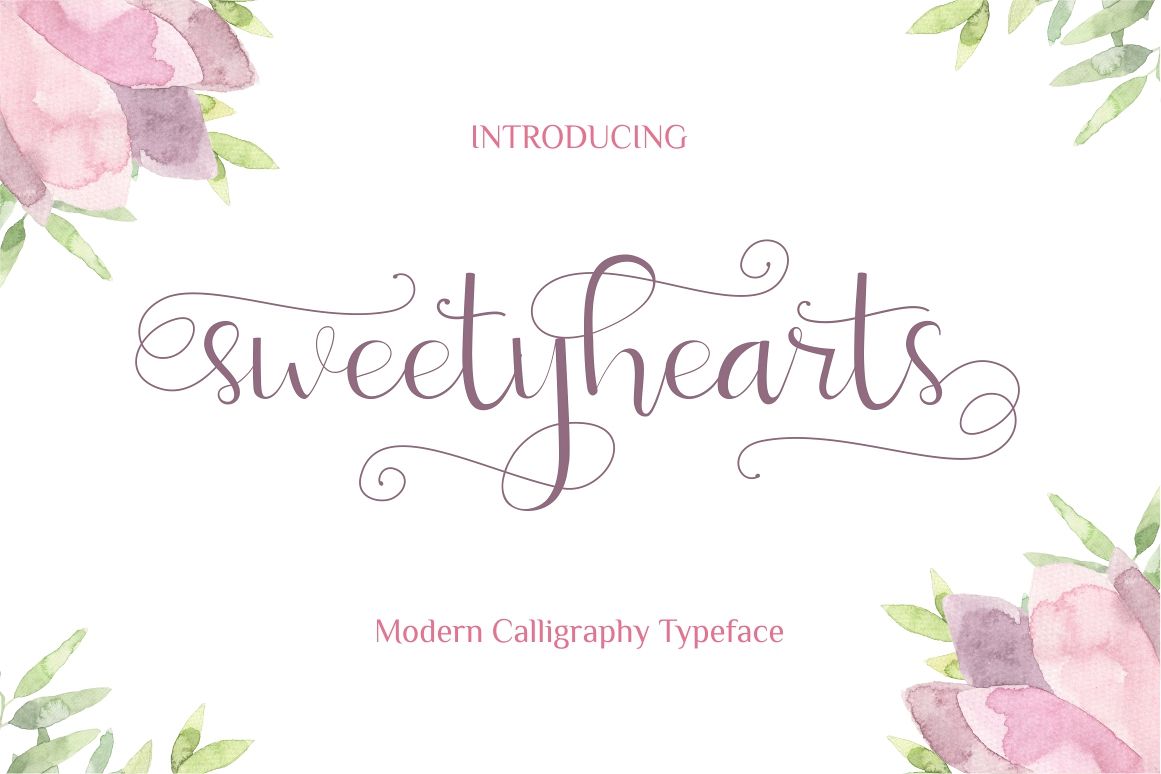
sweetyhearts is a modern calligraphy typeface. so girly and feminime. include lot of alternate. It is perfect for branding, letterhead, wedding invitations and cards.